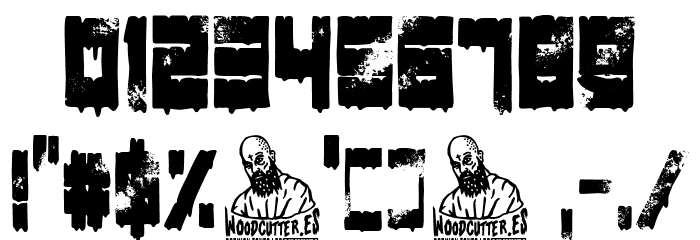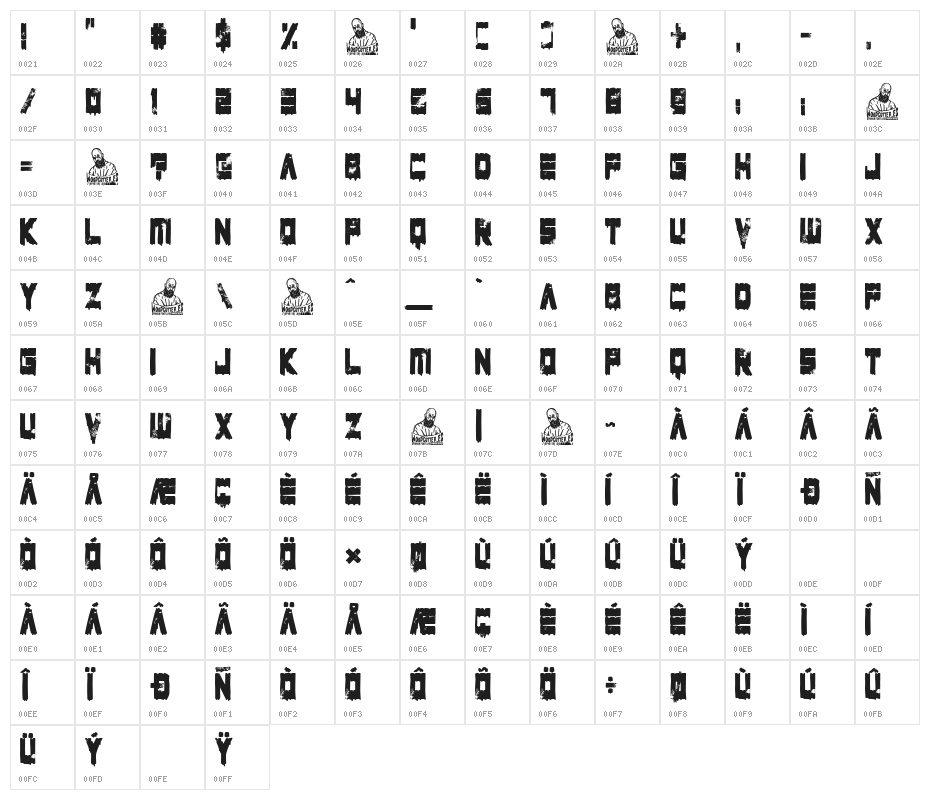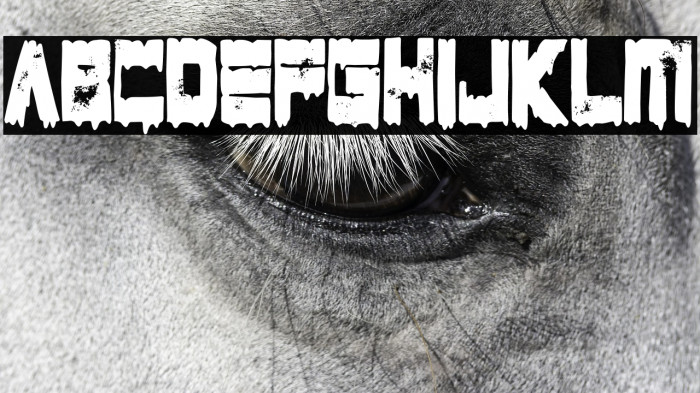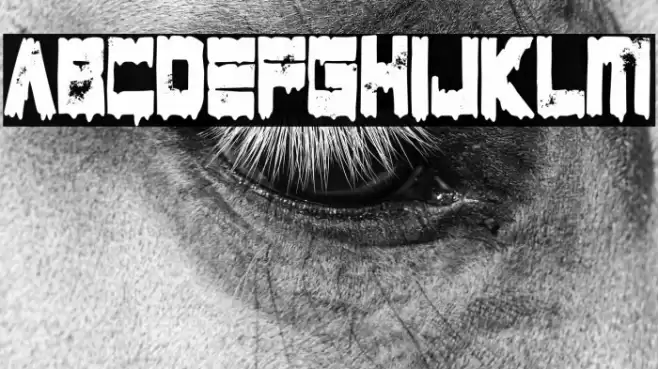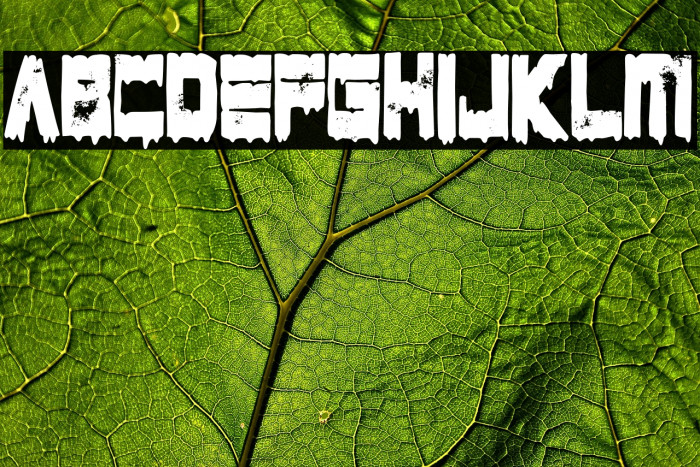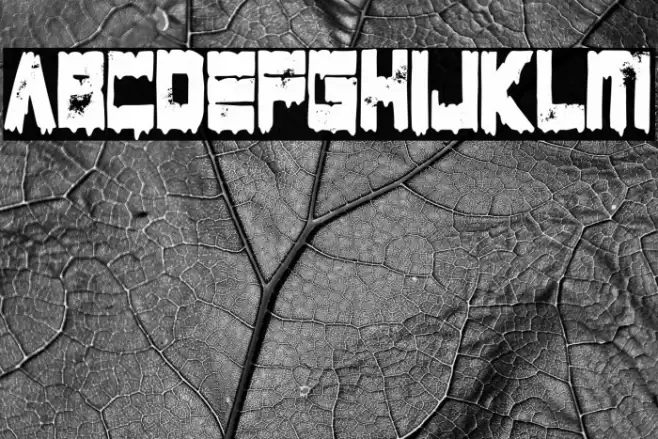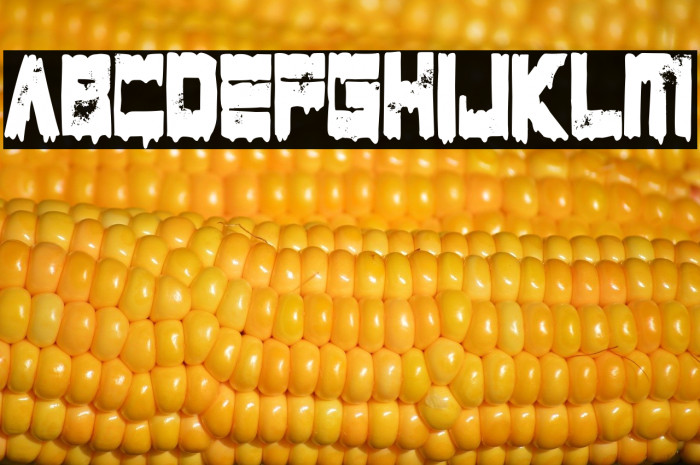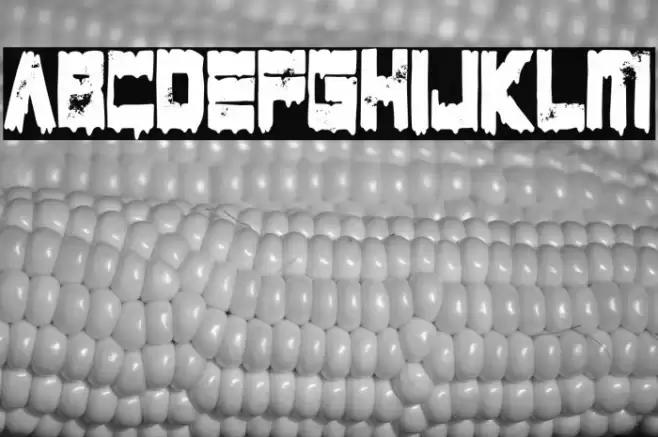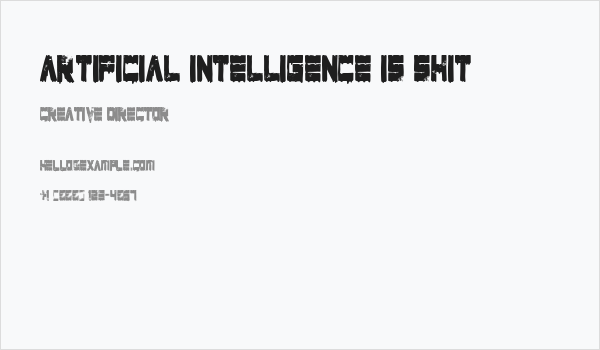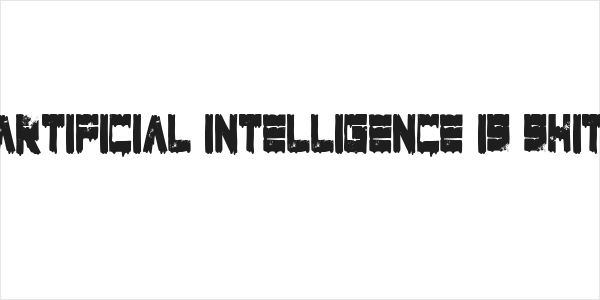
Artificial Intelligence Is Shit Font
Artificial Intelligence Is Shit Description
This font exhibits a rugged, distressed appearance with a bold and impactful style. The characters are designed with a rough, textured finish that gives them a worn and gritty look, reminiscent of graffiti or urban street art. The uppercase letters are bold and blocky, while the lowercase letters maintain a consistent style. Numbers and special characters follow the same distressed aesthetic, making the font suitable for designs that require a strong, edgy presence. The overall appearance is both striking and unconventional, perfect for projects that aim to capture attention.
| Overall Style | Urban, Grunge, Edgy |
| Proposed Projects | Ideal for album covers, posters, streetwear branding, and urban-themed designs. |